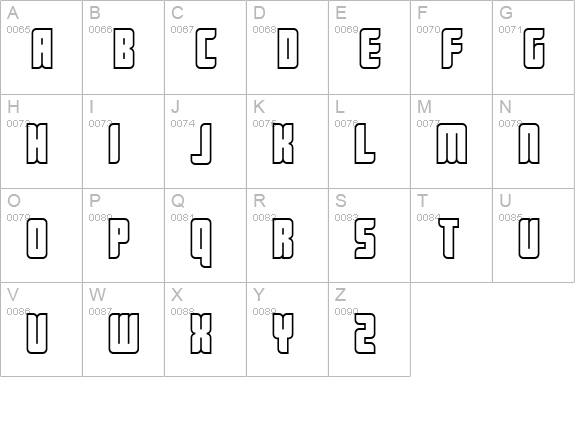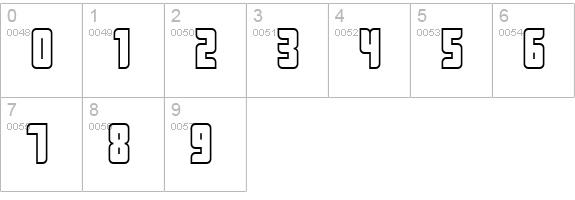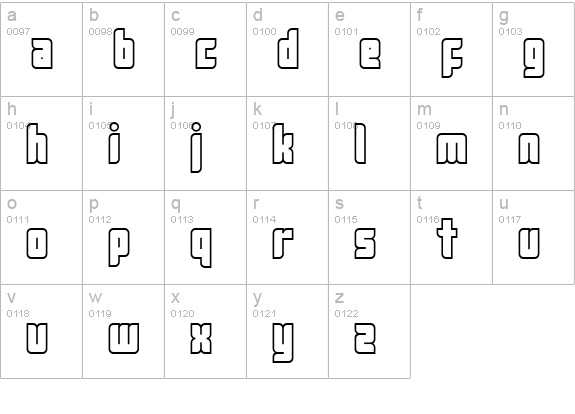
Push2 Font Details
Introducing Push2 font, a versatile and modern typeface that will elevate your designs to the next level. With its clean lines and contemporary look, Push2 font is perfect for various projects, from branding to editorial design. This font features a unique blend of elegance and simplicity, making it suitable for a wide range of applications. What's even better is that Push2 font is available for free download at FontsMarket.com. Whether you're a designer looking to add a fresh touch to your projects or a business owner seeking a new font for your branding, Push2 font is the perfect choice. Don't miss out on this opportunity to enhance your designs with this stunning typeface. Download Push2 font today and let your creativity shine!